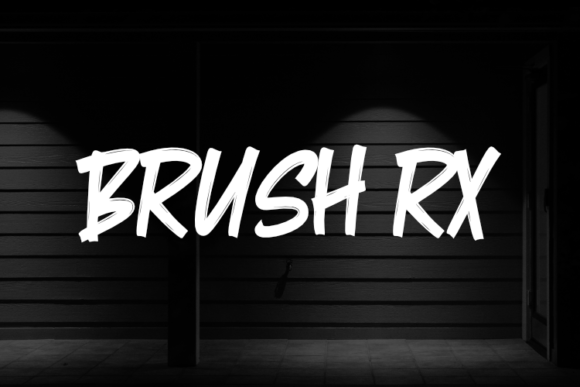
Unlocking Creative Potential with Brush RX Font
I’ll never forget the moment I stumbled upon the Brush RX font while working on a t-shirt design project for a client. I had been searching for the perfect font to give it a fashion-forward edge, but everything I tried seemed to fall flat. That was until I discovered Brush RX. Its unique aesthetic resonance instantly elevated my design, and I knew I had found the perfect fit. In this article, we’ll dive into the world of Brush RX and explore its capabilities, versatility, and creative potential.
An Honest Review of Brush RX Font
What I Love About Brush RX ✨
- 💃 **Unique Aesthetic**: Brush RX boasts a distinctive, hand-brushed look that adds a touch of elegance and sophistication to any design.
- 🌈 **Vibrant Personality**: Brush RX injects a dose of creativity and playfulness into designs, making it perfect for fashion-forward clothing and t-shirt designs.
While Brush RX is an exceptional font, there are a few minor limitations to consider:
- 🤔 **Limited Use in Formal Contexts**: Due to its unique, hand-brushed aesthetic, Brush RX may not be the best fit for formal or traditional designs.
- ⚠️ **Occasional Kerning Issues**: As with any font, some users may experience kerning issues, particularly when using certain character combinations.
The Story Behind Brush RX Font
Brush RX font was designed by a team of typographers who sought to create a unique, hand-brushed font that would add a touch of elegance and sophistication to designs. Inspired by the world of fashion and art, Brush RX was crafted to be a versatile, creative tool for designers. While the designer’s identity remains anonymous, their passion for typography and design is evident in the font’s exceptional quality and aesthetic appeal.
Q: What is Brush RX font best suited for? 🤔
A: Brush RX font is ideal for fashion-forward clothing and t-shirt designs, as well as creative projects that require a unique, hand-brushed aesthetic.